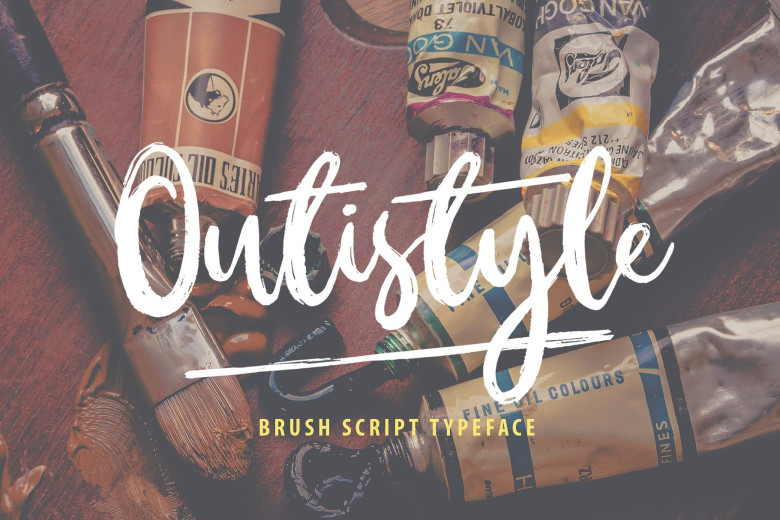
Outistyle Brush Font
Hello friend. A design of DikasStudio. Introducing Outistyle. Outistyle is a very textured brush script font inspired by modern calligraphy style. It’s makes the font be very fun, playfull and brave in the same time. Suitable and applicable to create typography design, christmas card, branding, logos, product packaging, invitation, qoutes, t-shirt, label poster etc.